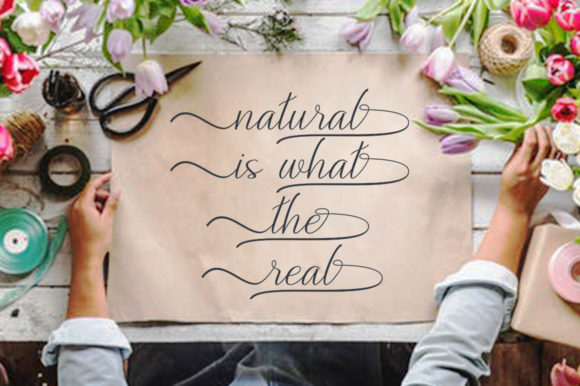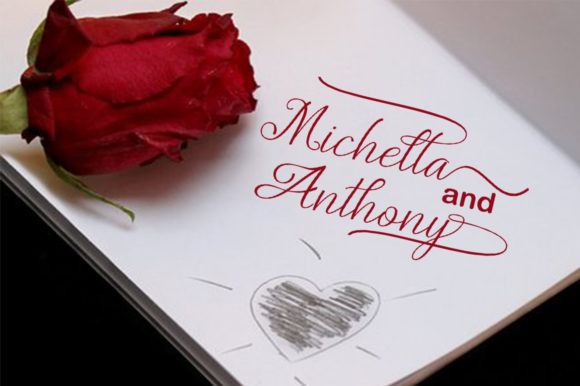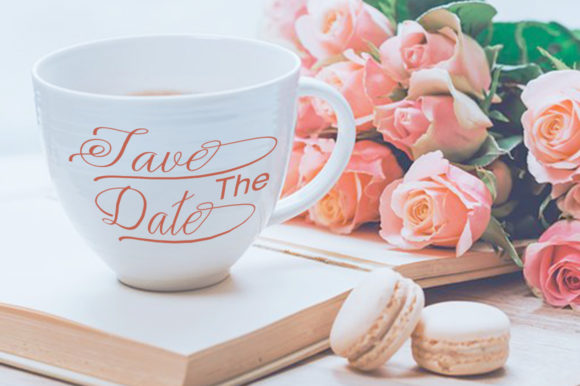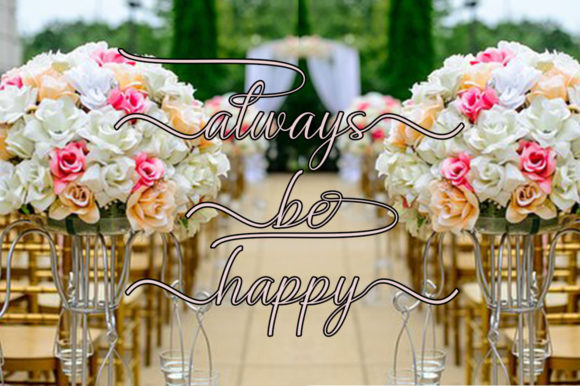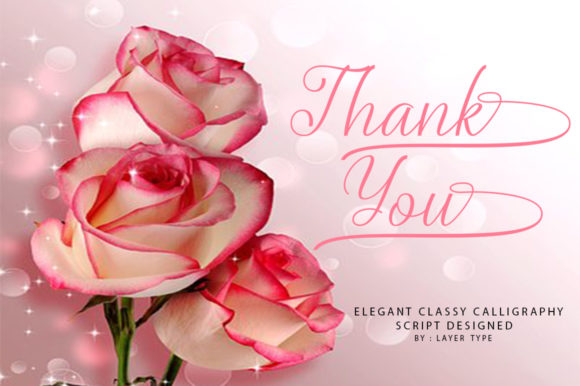
HomeScript FontsKagesha Font Script Fonts Kagesha Font FacebookXPinterestWhatsApp Kagesha Font Poster 2 Kagesha Font Poster 3 Kagesha Font Poster 4 Kagesha Font Poster 5 Kagesha Font Poster 6 About Kagesha Font Kagesha is a fun and cool script with a delicate style. Fall in love for its modern authenticity. DOWNLOAD ON CREATIVE FABRICAThis font is sold and delivered by Creative Fabrica. Font Canyon may earn a commission if you buy through this link. People also explored Philomena Font Reliable Font Westborn Font Oyster CPC Font Landsay Font Script Monograms Bottomland Font Dilemma Xandria Font 321 0 TagsKagesha Font Previous articleFantastic Script FontNext articleAlice Chater Font LEAVE A REPLY Cancel reply Comment: Please enter your comment! Name:* Please enter your name here Email:* You have entered an incorrect email address! Please enter your email address here Website: Save my name, email, and website in this browser for the next time I comment. Personal Use Free BD AsciiMax Personal Use Free Read more about this font Kids Toys Personal Use Free Read more about this font Propaganda Personal Use Free Read more about this font Tide Personal Use Free Read more about this font BLOG Top 10 Handwritten Fonts That Elevate Your Designs Top 10 Handwritten Fonts That Will Elevate Your Designs Handwritten fonts bring a warm, personal touch to every creative project. Whether you're designing logos, invitations,... Top 7 Google Fonts Alternatives for Faster and Privacy-Friendly Web Design (2025) Where to Buy American Fonts Online in 2024 How to Install and Use Fonts on Windows, macOS, and Web Projects